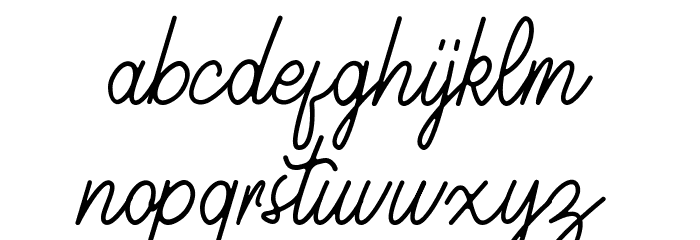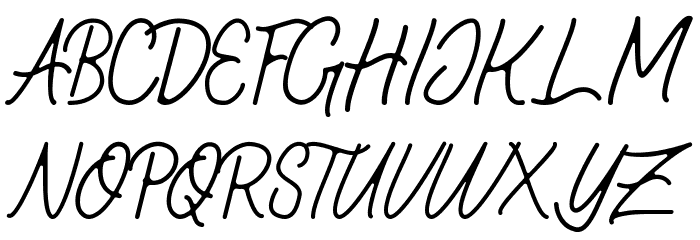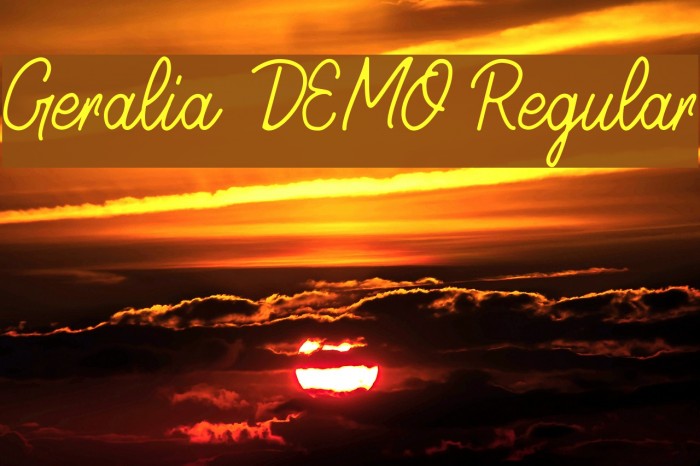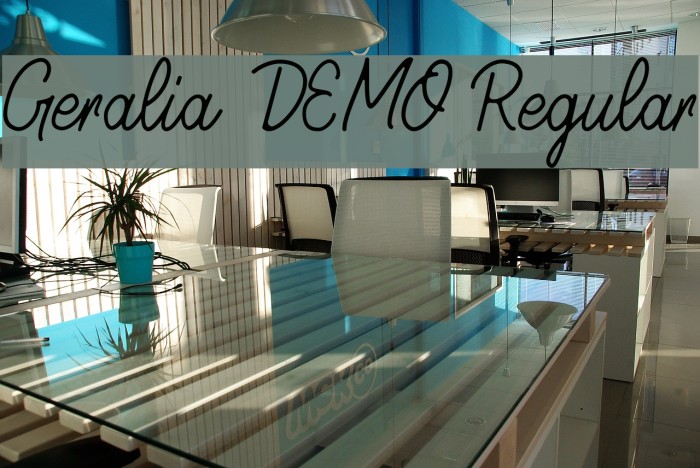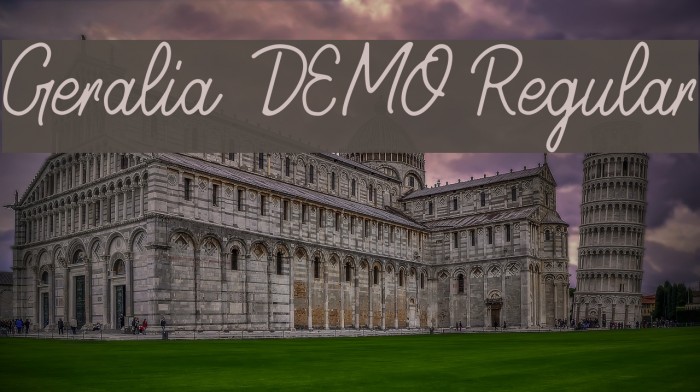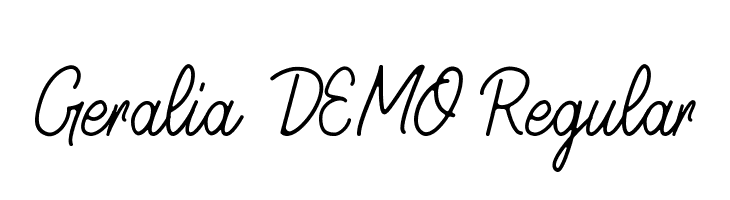
Geralia - DEMO Regular Font
This font features a fluid and elegant script style, characterized by its smooth, flowing lines and cursive letterforms. The uppercase letters are tall and slightly slanted, with a graceful connection between strokes, while the lowercase letters maintain a consistent rhythm and balance. The overall appearance is both sophisticated and approachable, making it suitable for a variety of design contexts. The font's unique charm lies in its ability to convey a sense of personal touch and creativity, ideal for projects that require a handwritten aesthetic.
A fluid and elegant script font with smooth, flowing lines and cursive letterforms.
- Proposed Projects: Ideal for wedding invitations, greeting cards, branding, and personal stationery.
- Category: Script
- Overall Style: Elegant, Handwritten
- Use Case: Logos, Invitations, Personal stationery